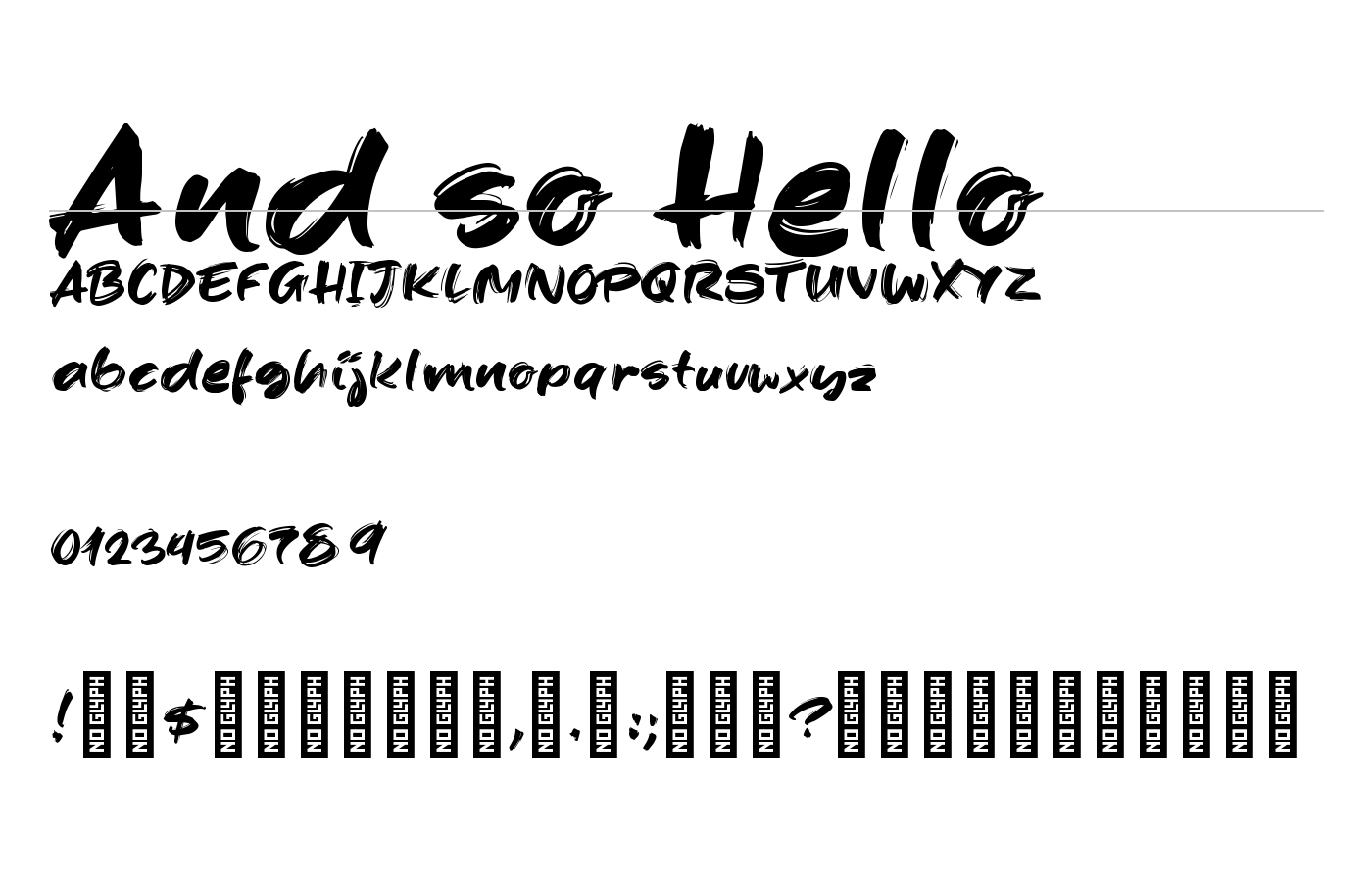
And so Hello is a bold and expressive script font with a hand-painted feel, featuring thick, dynamic strokes and a casual, lively style. Its playful yet confident character makes it ideal for creative projects, branding, and headlines where a personal and energetic touch is desired. This font works well for packaging, posters, and social media graphics that aim to stand out with a friendly and artistic vibe.
And so Hello Font
About And so Hello Font
| Font family | And so Hello Font |
| Designer | Roland Hüse |